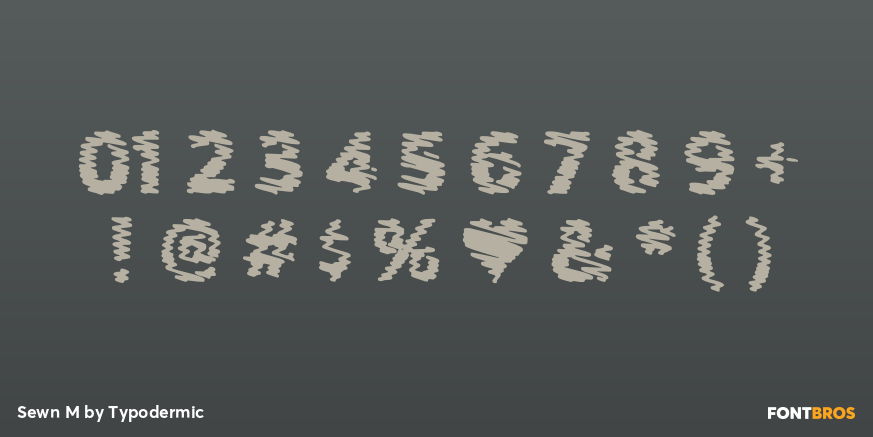
Sewn M
Buy NowSewn M is the general-purpose middle scale in Sewn’s faux-embroidery system. Its thread-like marks are finer and more numerous than those in Sewn S, adding visible stitch rhythm without demanding the very large reproduction needed by L or XL. The balance gives medium-sized lettering a convincing textile surface while keeping counters and joins clear.
Use Sewn M for garment collection names, merchandise graphics, packaging fronts, event posters, online campaign cards, and product-detail callouts. It is a practical choice when one treatment has to move across several medium display formats. Sewn S is sturdier for smaller applications, while L and XL provide increasingly fine texture for large headlines, windows, and environmental graphics. Like every Sewn style, M is editable display typography rather than machine-embroidery artwork.